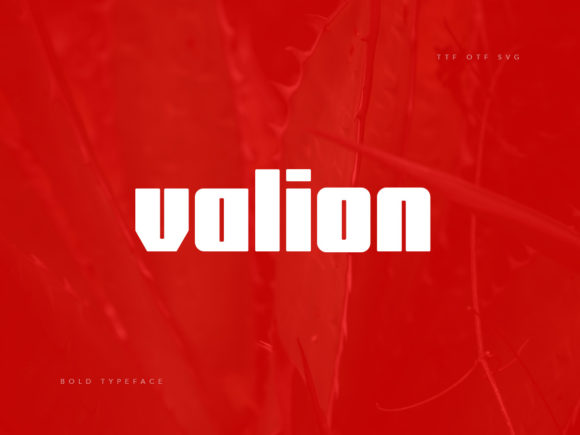
Dive into the world of powerful typography with Valion Font, the ultimate display font designed to command attention and leave a lasting impression. This bold and assertive font exudes confidence and strength, making it the perfect choice for headlines, titles, logos, and any project demanding a commanding presence.
Unleash your creativity and let Valion Font take your designs to new heights. Its thick, assertive letterforms deliver an impactful visual experience that grabs attention and captivates audiences. Experiment with endless variations, exploring the font's versatility in different contexts and applications.
With Valion Font, you'll embark on a journey of creative expression. Its timeless design transcends trends, ensuring your projects remain visually striking and memorable. Let Valion Font elevate your designs, conveying messages with impact and authority. Experience the power of typography and unlock limitless possibilities with this remarkable display font.